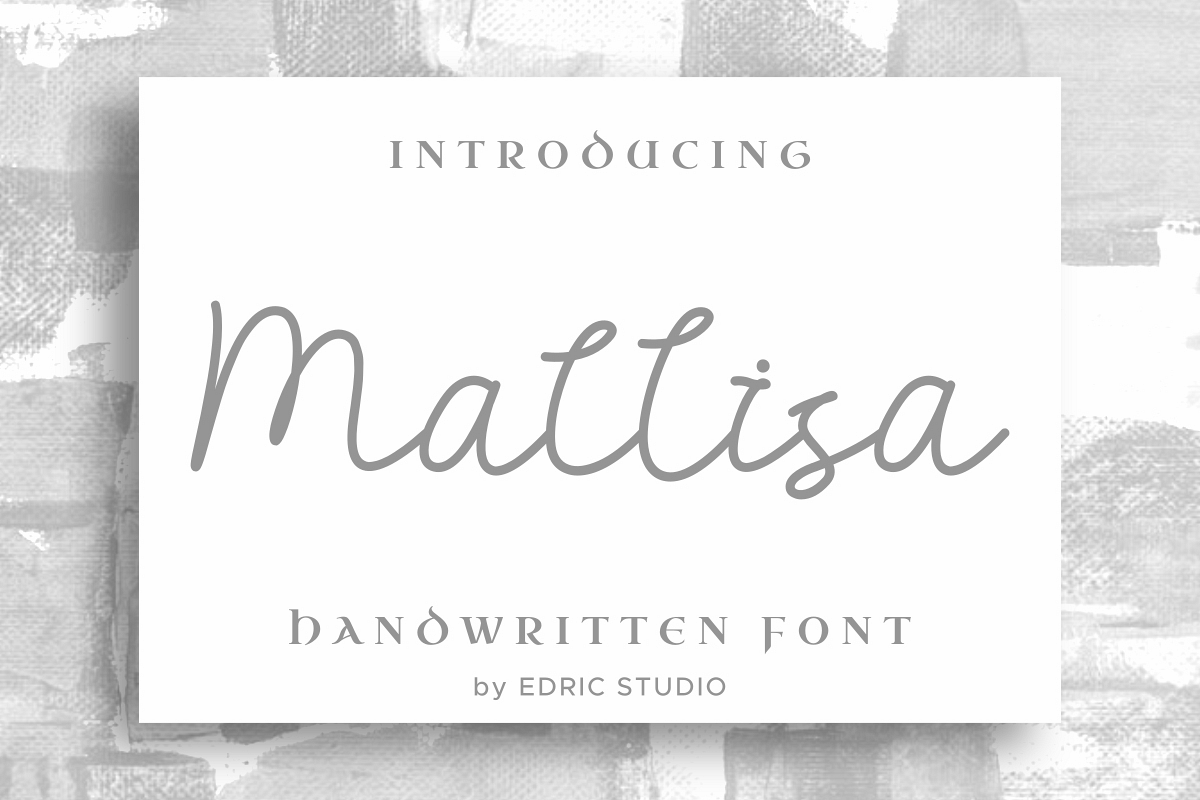
Mallisa
Please welcome our latest font : Mallisa Handwritten font!
This is a new script handwritten style font. It has a beautiful and stylish glyphs. Will be awesome for any designs projects.On the package, You will get :
Mallisa Handwritten font has two styles : reguler and bold.  It also works with multi languages.Mallisa Handwritten font has a stylish elegant glyph that will be perfect for card, flyer, brochure, branding, logotype, wedding, advertising, promotion, photography or any other design projects. It is so elegant, classic and beautiful.This font will Work on PC & Mac with Simple installations. Accessible in the Adobe Illustrator, Adobe Photoshop, Adobe InDesign, even work on Microsoft Word. It’s also PUA Encoded Characters – Fully accessible without additional design software.Purchase with confidence! =)